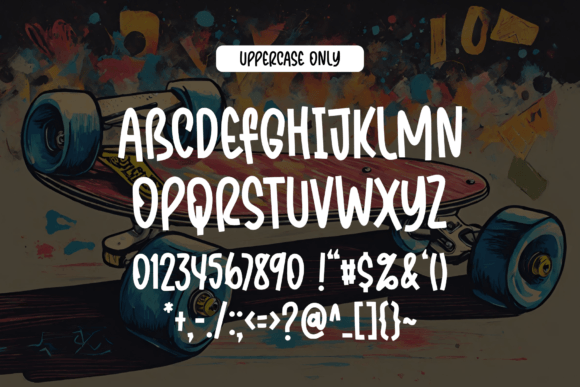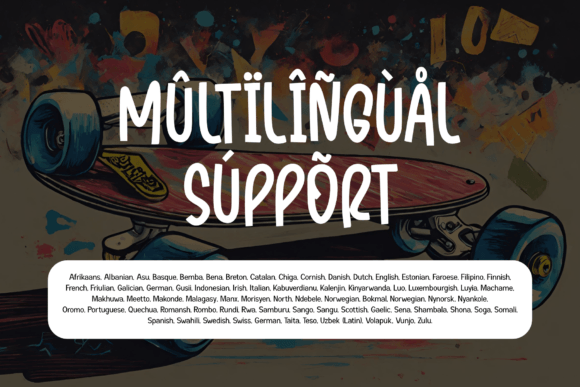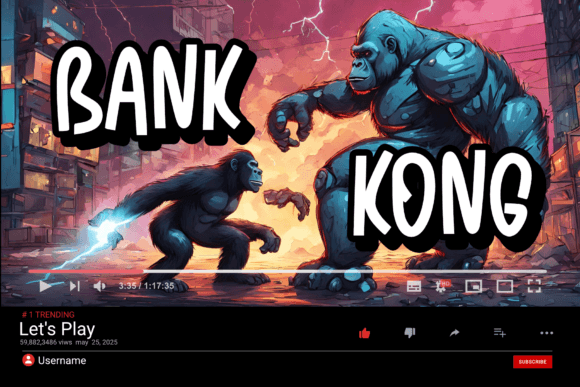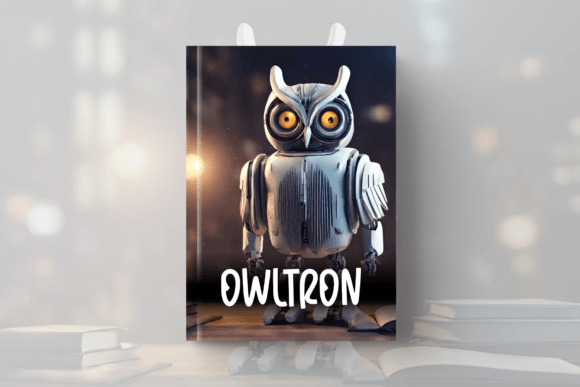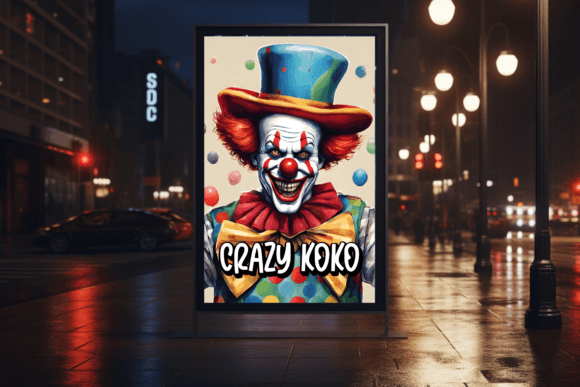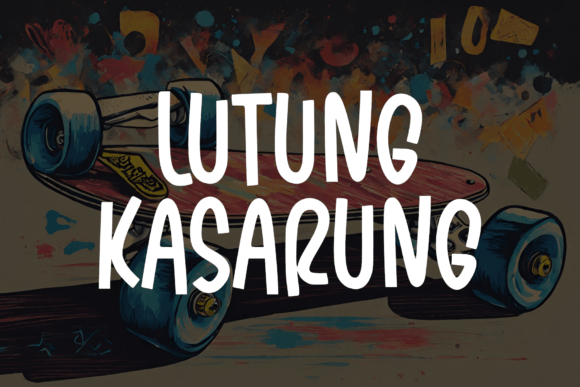
Introducing Charmer Font: The Ultimate Choice for Designers and Crafters
In the world of typography, a font can make or break a design. It has the power to evoke emotions, convey messages, and create a lasting impression. If you’re a designer or crafter looking for a font that exudes charm and warmth, look no further than Charmer Font. In this article, we’ll dive into the unique features of Charmer Font and explore how it can elevate your design work.
The Charm of Charmer Font
Charmer Font is a casual font that is designed to add a touch of warmth and personality to any design. With its expressive uppercase letters, Charmer provides a strong and attractive impression, making it perfect for film titles, book titles, subtitles, and various other designs. Each letter in Charmer possesses unique characteristics, combining bold and stylish design elements to create an unforgettable look.
What Sets Charmer Font Apart
So, what makes Charmer Font stand out from the rest? Here are a few key features that set it apart:
- Expressive Uppercase Letters: Charmer Font features bold and stylish uppercase letters that are sure to grab attention. Whether you’re designing a title or headline, Charmer’s uppercase letters will make it shine.
- Unique Characteristics: Each letter in Charmer Font has its own unique characteristics, making it a one-of-a-kind font that will add personality to your design.
- Warm and Inviting: Charmer Font has a warm and inviting feel that makes it perfect for designs that require a touch of personality.
Charmer Font is perfect for designers and crafters who want to add a personal touch to their work. Whether you’re designing a logo, creating a title sequence for a film, or crafting a handmade card, Charmer Font is the perfect choice. Its versatility and charm make it suitable for a wide range of design projects, including:
- Film Titles: Charmer Font’s bold and stylish uppercase letters make it perfect for film titles that require a strong and attractive impression.
- Book Titles: Charmer Font’s warm and inviting feel makes it perfect for book titles that require a touch of personality.
- Subtitles: Charmer Font’s expressive uppercase letters make it perfect for subtitles that require a clear and readable font.
- Handmade Crafts: Charmer Font’s unique characteristics make it perfect for handmade crafts that require a personal touch.
Tips for Using Charmer Font